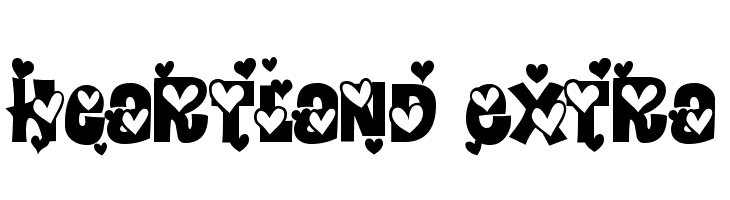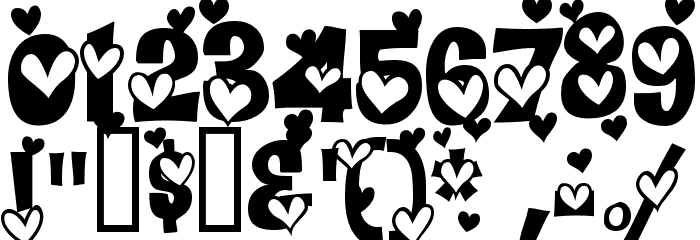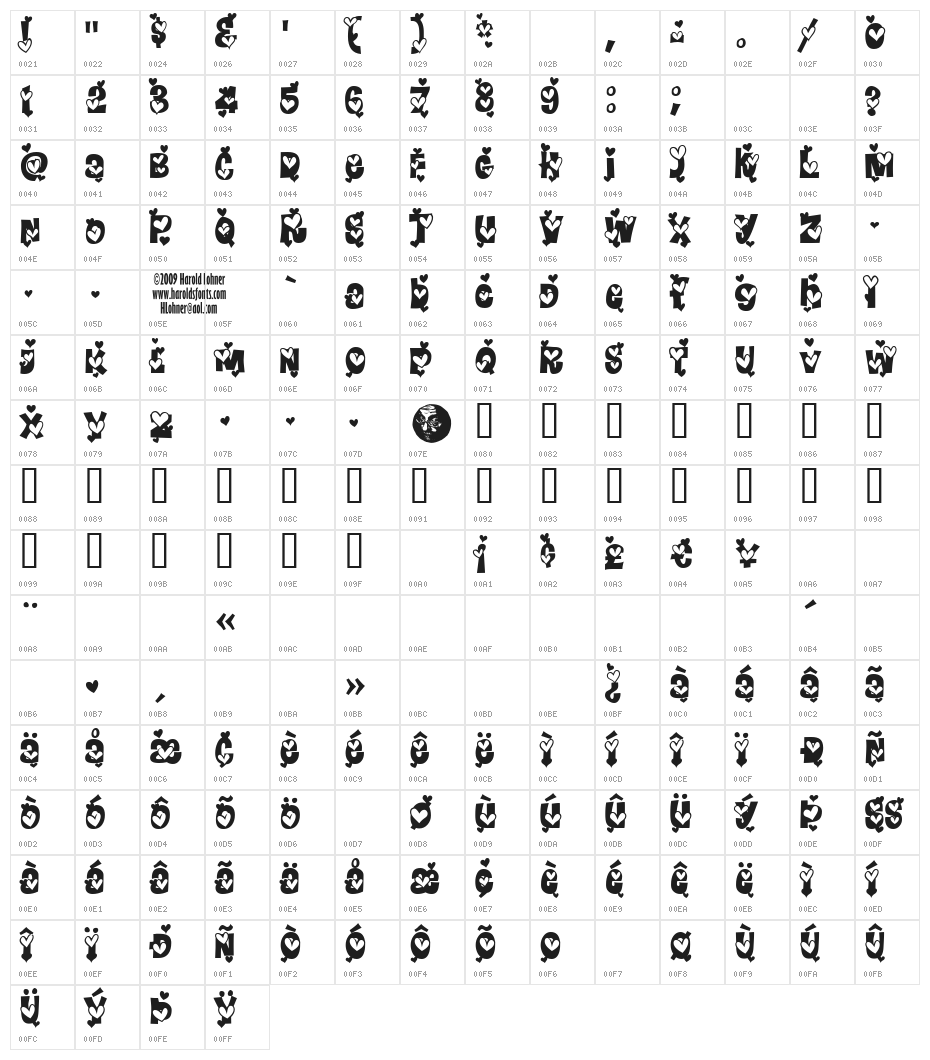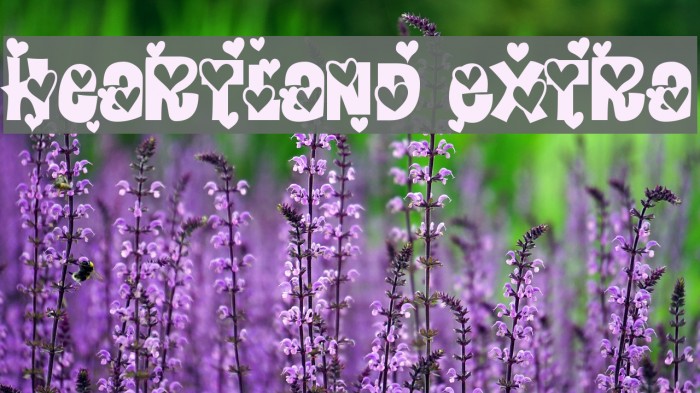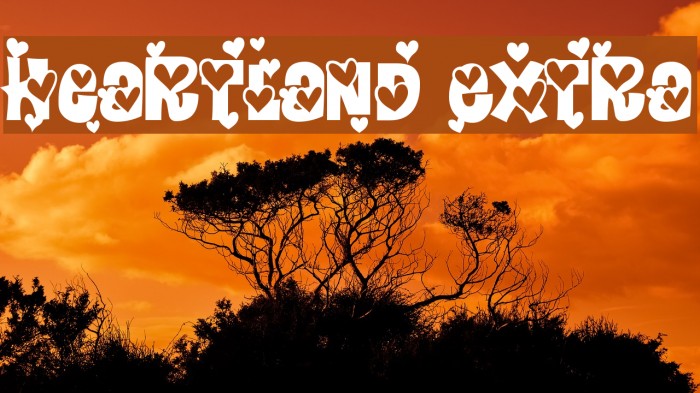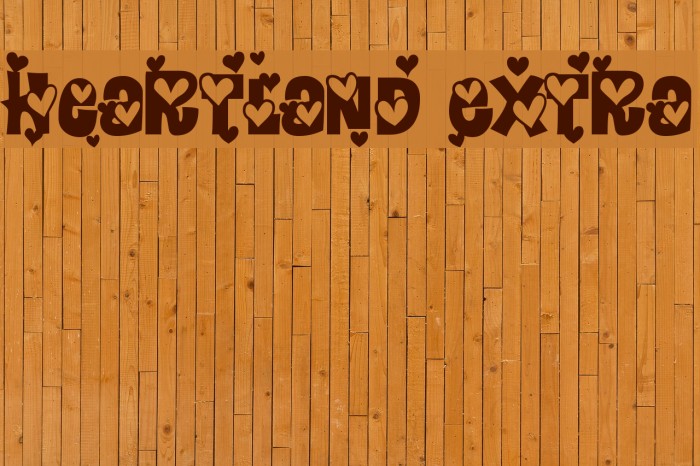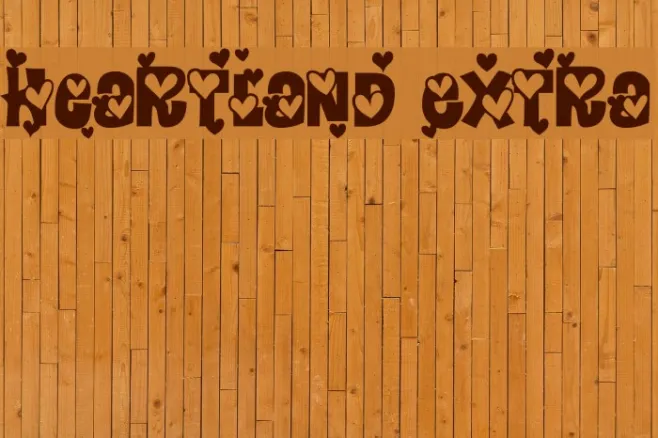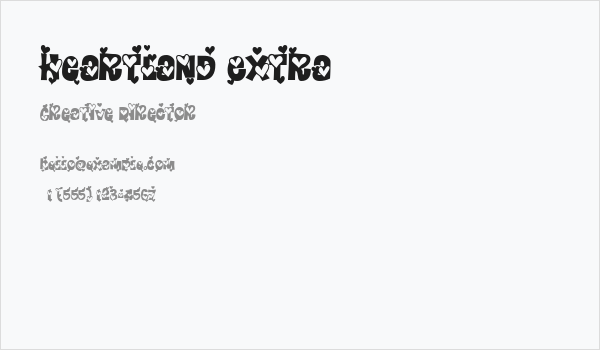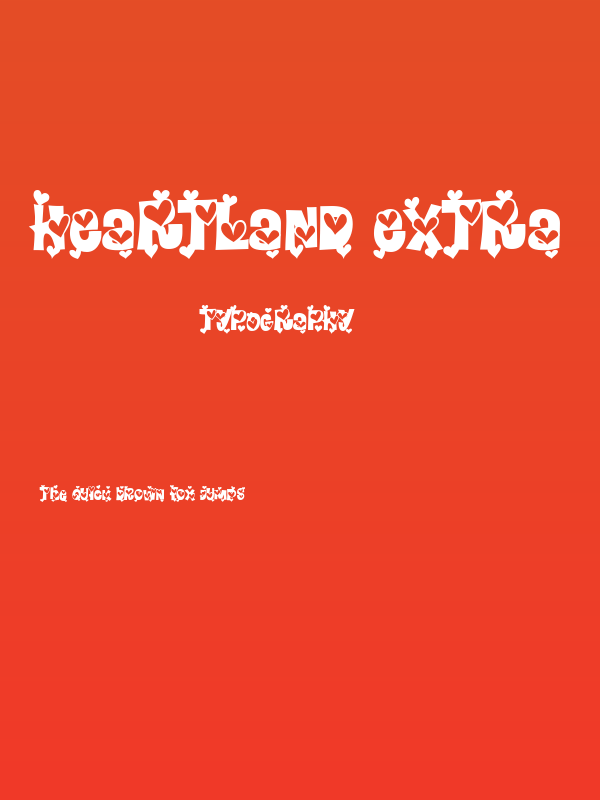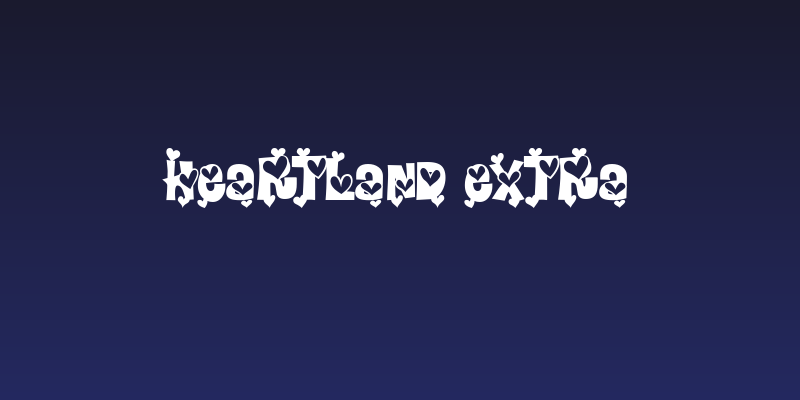
Heartland Extra Font
Heartland Extra Description
This playful and decorative font features bold, whimsical characters adorned with heart motifs. Each letter and number is uniquely designed with hearts integrated into the structure, creating a lively and romantic appearance. The font is characterized by its thick strokes and high contrast, making it stand out in any design. The heart elements add a touch of charm and fun, making it perfect for projects that require a loving or festive theme. The overall style is modern and decorative, with a focus on creativity and expressiveness.
| Proposed Projects | Ideal for Valentine's Day cards, wedding invitations, love-themed posters, and playful branding. |